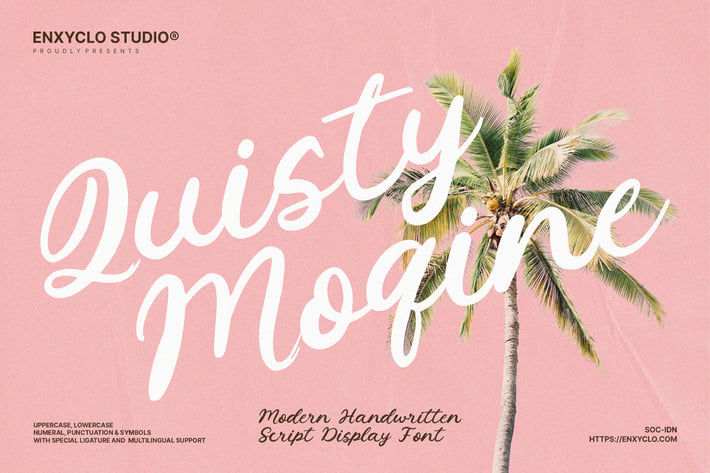
Quisty Moqine - Handwritten Brush Script Font
Quisty Moqine is a handwritten brush script retro display font. Masterfully designed to become a true favorite, this font has the potential to bring each of your creative ideas to the highest level! It was purposely crafted to be used in large point sizes, although it doesn’t lose its magic in small point sizes. It is perfect for headline, billboard, magazines, website, titles, poster, branding, and logos. No matter the topic, this font will be an incredible asset to your fonts’ library, as it has the potential to elevate any creation. With this beautiful font, absolutely you can make your project stand out from the rest.
- Uppercase & Lowercase
- Numeral, Punctuation & Symbols